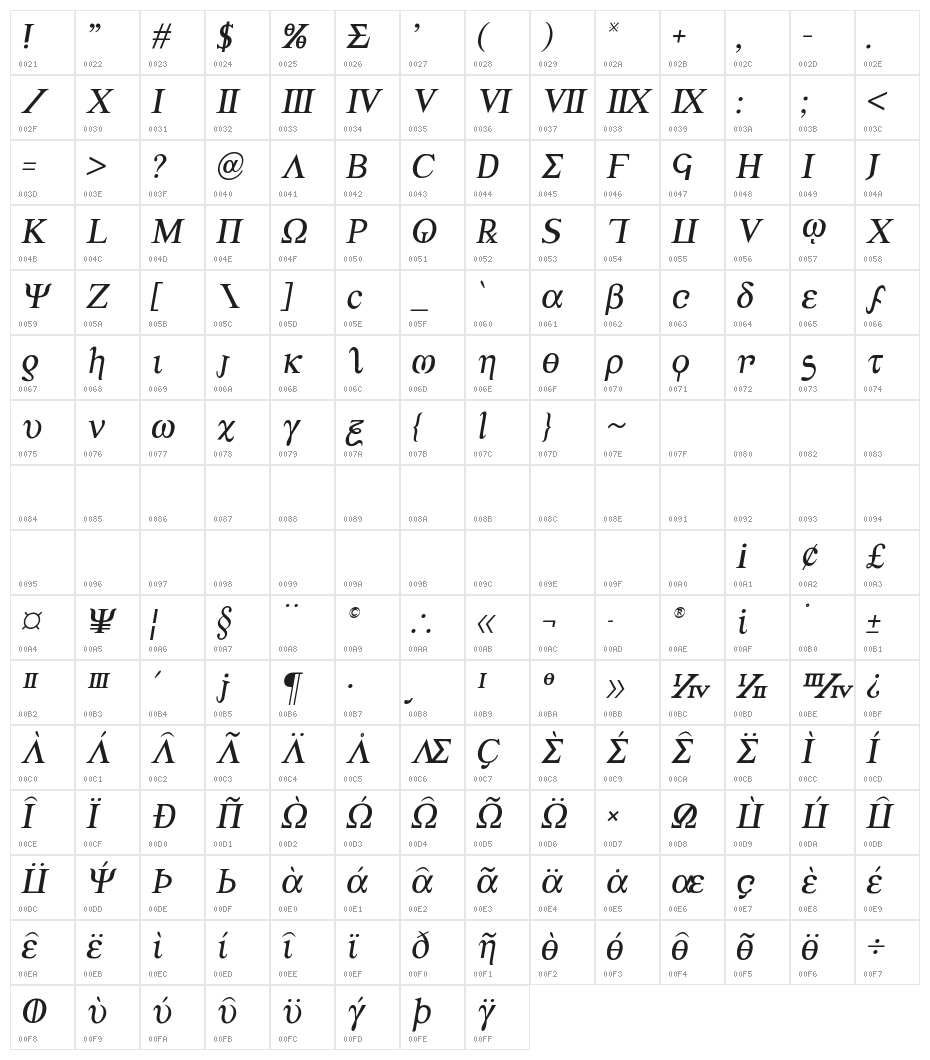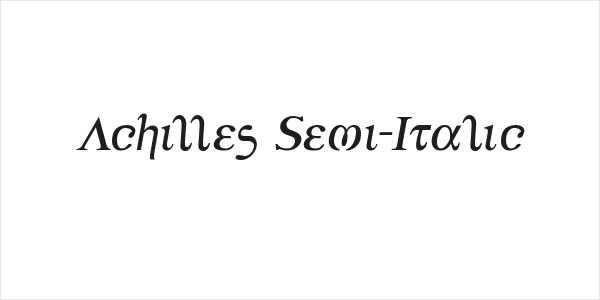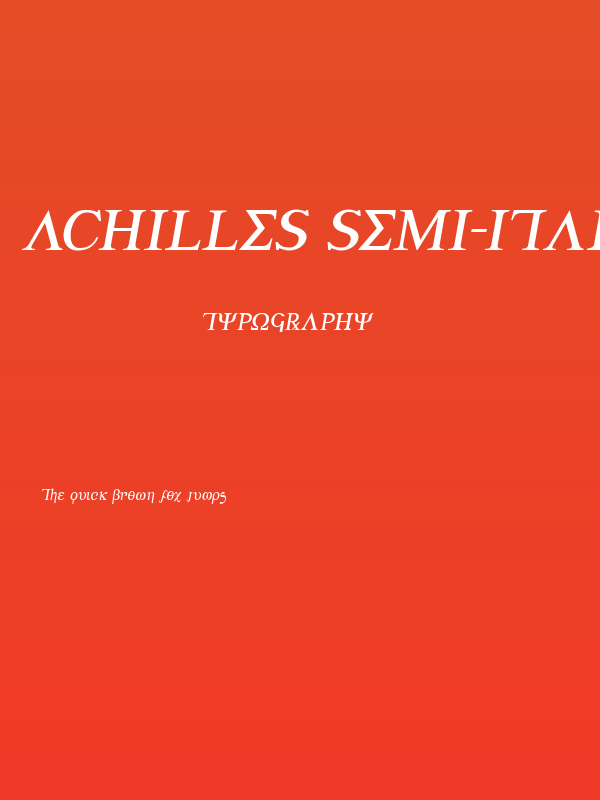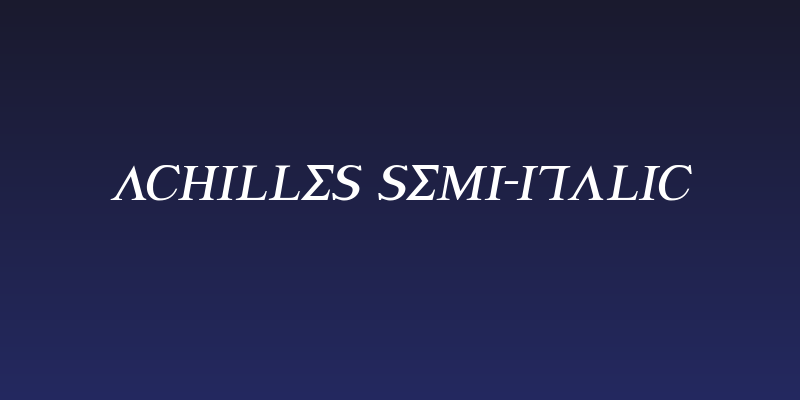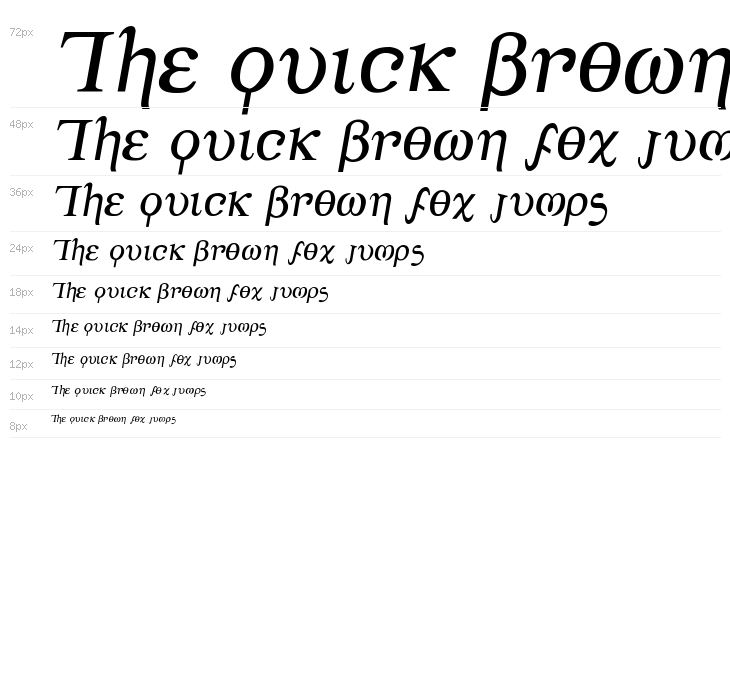
Achilles Semi-Italic Font
Achilles Semi-Italic Description
This font features a semi-italic style with a distinct slant that gives it a dynamic and elegant appearance. The characters are well-defined with a moderate contrast between thick and thin strokes, adding to its readability and aesthetic appeal. The uppercase letters exhibit a classic form, while the lowercase letters maintain a consistent flow, enhancing the overall harmony of the typeface. The numerals are clear and balanced, making them suitable for various applications. Special characters are included, offering versatility for different design needs.